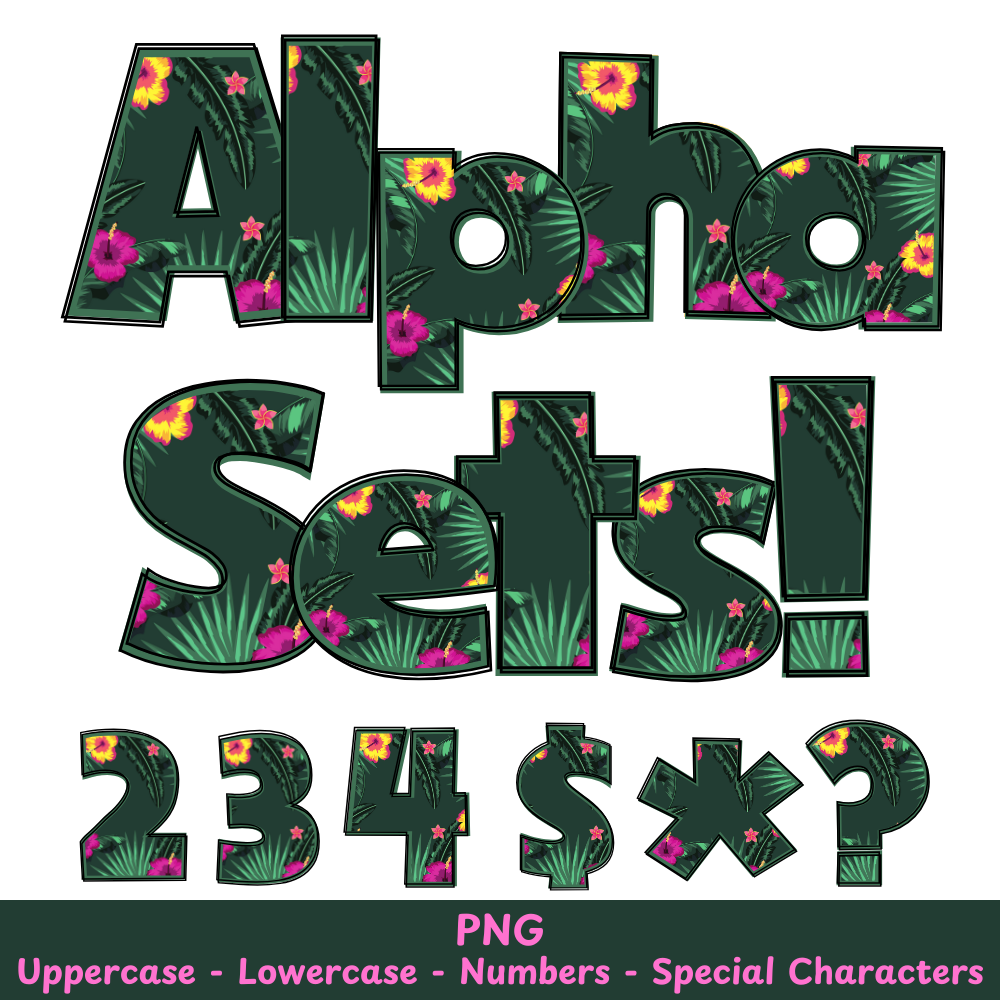
Green Flowers PNG Font
Green Flowers Alpha Set PNG Font Pack
Add a touch of nature to your crafts with the Green Flowers PNG Font. Perfect for sublimation and other projects, this font features beautiful green flowers that will elevate your designs. Make your projects stand out with this unique and versatile font.